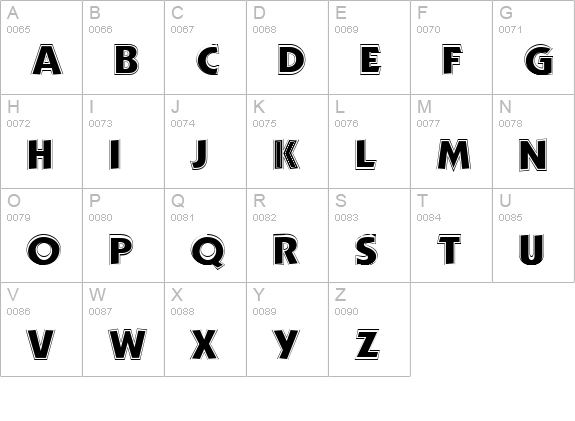
Performa Outline SSi Outline Font Details
Performa Outline SSi Outline font is a stunning typeface that combines elegance with a touch of modernity. Its sleek and clean lines make it a perfect choice for a variety of design projects, whether it's creating eye-catching logos, stylish headlines, or captivating posters. The font features a unique outline design that adds a sense of depth and sophistication to any text. Each character is meticulously crafted, with precise curves and sharp corners that give it a contemporary look. The uniformity of the letterforms ensures a harmonious balance, while the subtle variations in stroke width add a subtle sense of dynamism. One of the most remarkable features of Performa Outline SSi Outline font is that it is freely available to download at FontsMarket.com. This means that you can easily access this exceptional typeface without any cost. Whether you are a professional designer, a student, or an enthusiast looking to add a touch of elegance to your projects, this font is a valuable addition to your typography collection. The versatility of Performa Outline SSi Outline font allows it to shine in both large and small sizes. Its legibility ensures that your message will be conveyed clearly, even when used in demanding design contexts. The font's outline design also makes it an excellent choice for creating eye-catching effects, such as layering different colors or textures within the characters. With Performa Outline SSi Outline font, you have the freedom to explore your creativity and experiment with various design possibilities. Its timeless appeal and modern aesthetic make it a valuable asset for any design project, whether it's for print or digital media. In conclusion, Performa Outline SSi Outline font is a must-have for designers seeking a versatile and elegant typeface. Its freely available download at FontsMarket.com makes it easily accessible to anyone looking to add a touch of sophistication to their designs. Whether you're creating logos, headlines, or posters, this font will undoubtedly elevate your designs to the next level.